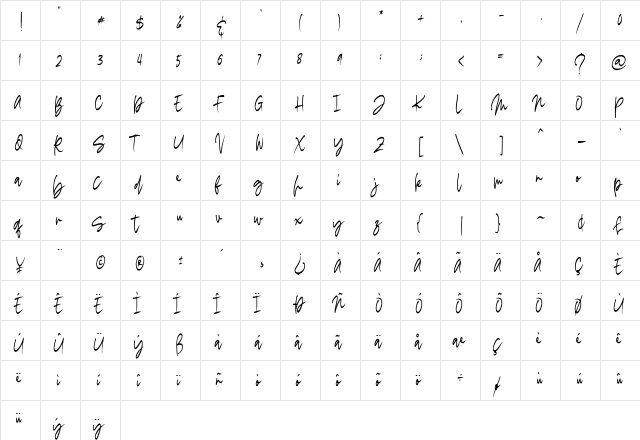
Madigel Personal Use Regular
| Foundry | Muhammad Naufal Anis |
| Designer | Muhammad Naufal Anis |
Design Context for Madigel Personal Use Typeface
Madigel Personal Use is a composed and adaptable typeface that performs quietly and consistently across a wide range of design contexts.